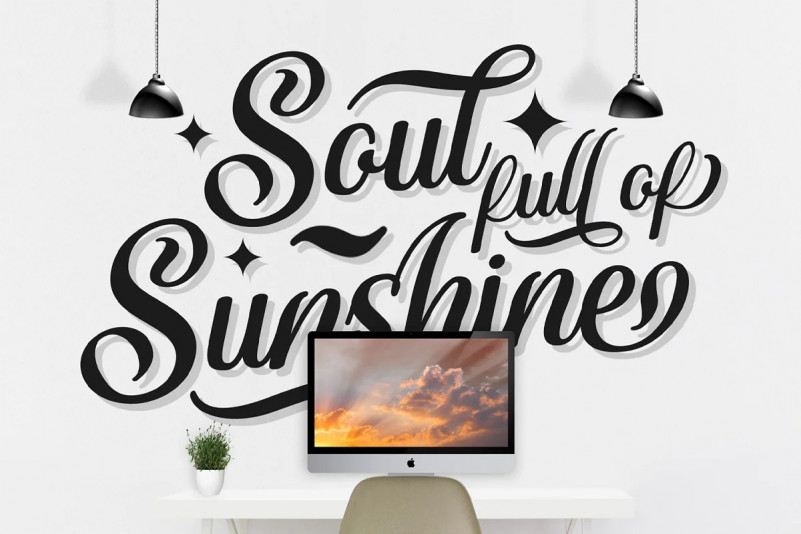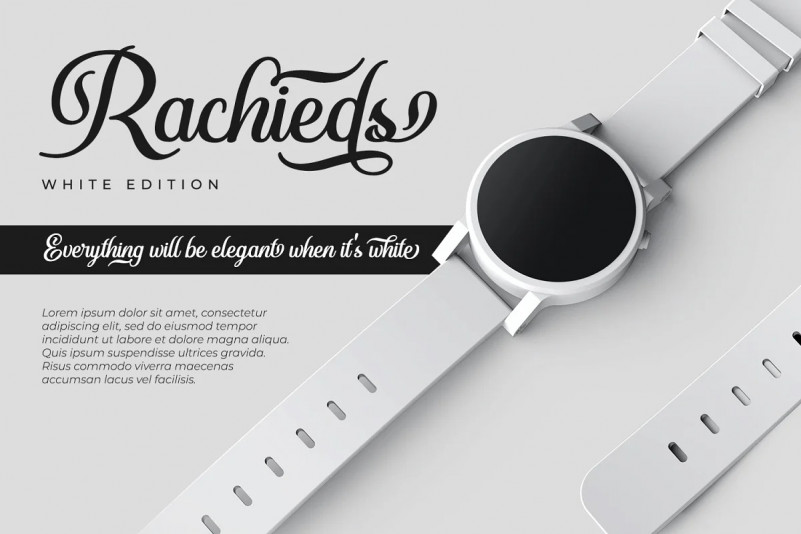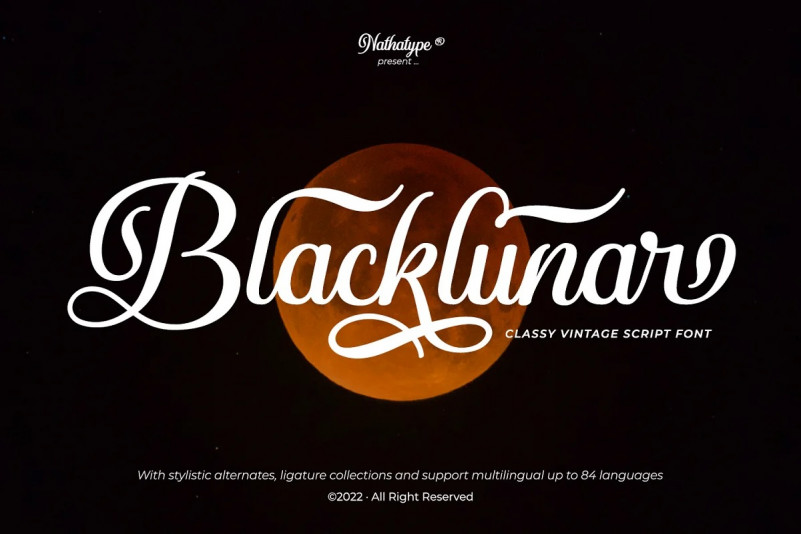
Blacklunar Font
Blacklunar is a script font set to captivate. Truly a style statement script font for your vintage vibes that will make heads turn. It’s easy to read and works equally good as well in header and body text. The curvy and unique strokes at some particular characters give this font the sense of vintage. Even more, this font has fascinating features that helps you maximize your design.